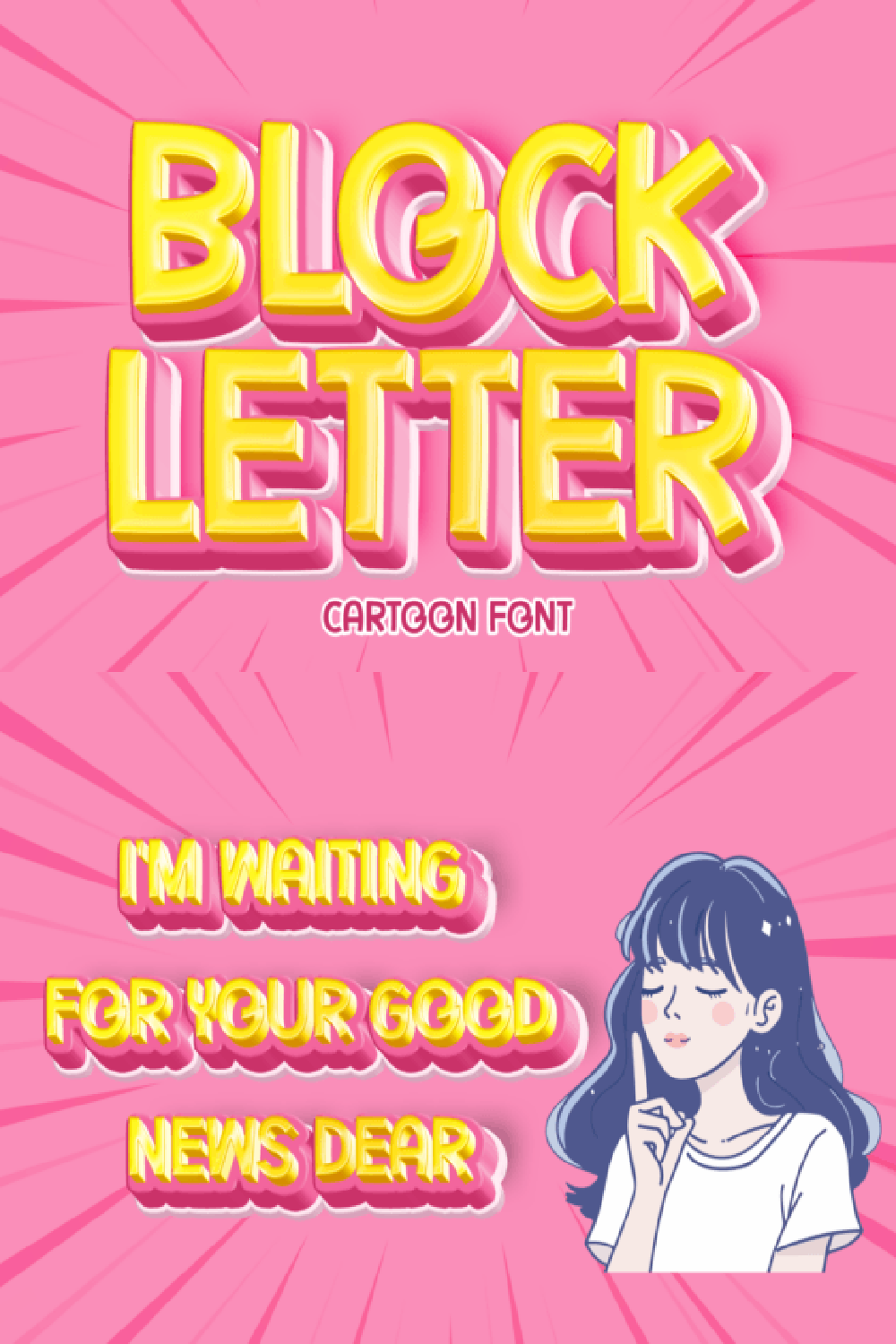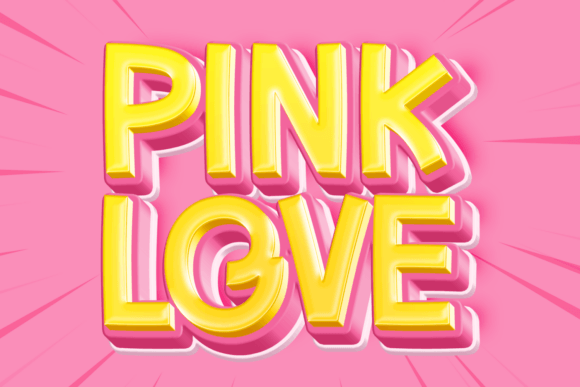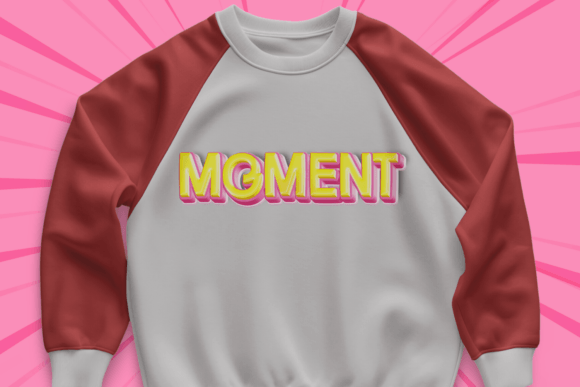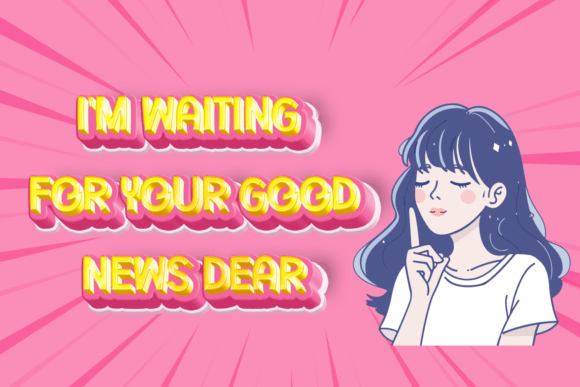
Block Letter Font
About the Block Letter Font
Crafted with precision, the Block Letter Font is ready to bring your ideas to life. Illuminate your world with Block Letter! This Cartoon Style Typeface is not just a font, but a riot of joy and cheer, with an unmistakable charmingly chunky build. Perfect for Comic Book creators or merely for producing impressive headlines, it brings a measure of fun and playfulness to any design. Versatile for every occasion, from a Happy Valentine to Halloween, this bold comic font is eye-catching and powerful. Ideal for designing book covers, kids fonts or even apparel graphics, it’s an absolute delight! Pics up on any piece, be it on a cute title or a funky t-shirt. So embrace this thick, joyful font and let Display add some charm to your work.